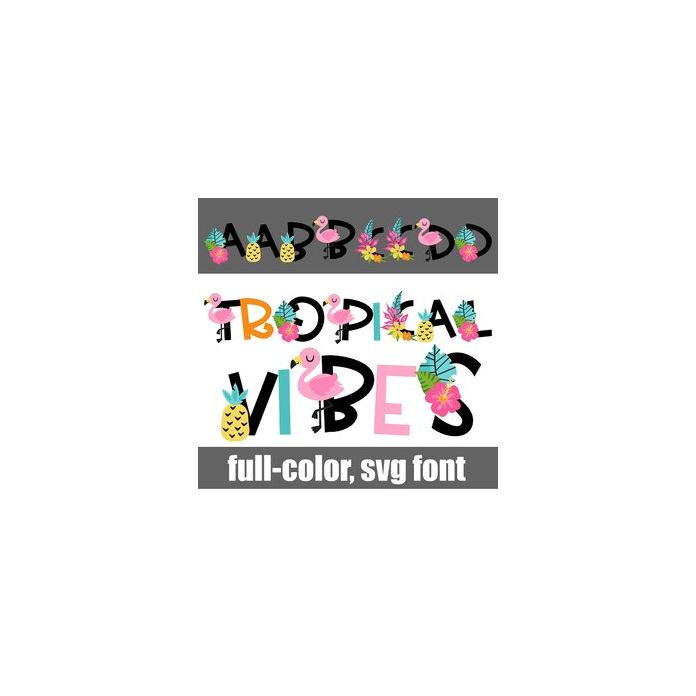
This full-color font features tropical birds, flowers, and fruit on black letters. There is an alt case w/ additional colors you can access through your system or Silhouette's glyph map.